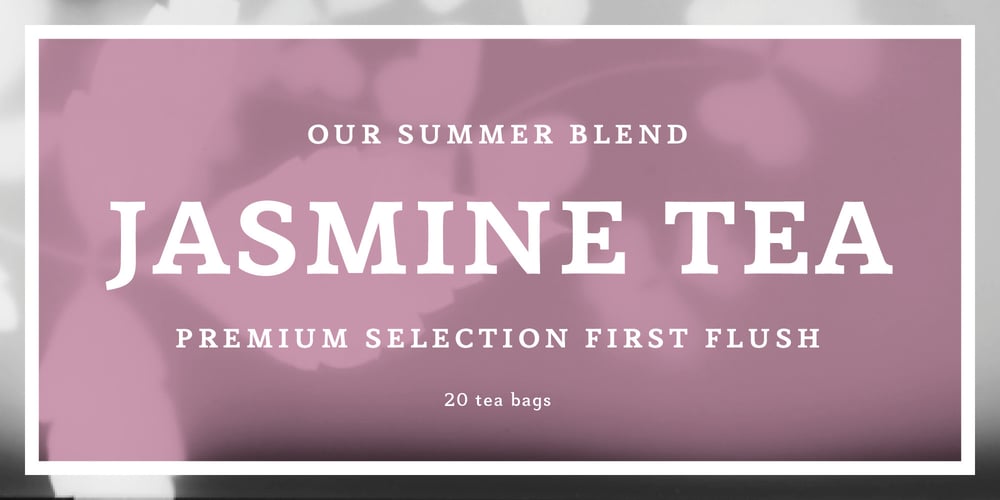
Mido
Mido font
Mido Font Family was designed by Eva Wilsson and published by Design Eva Wilsson. Mido contains 1 styles and family package options. Mido is designed with the aim to recreate all the power of the early 19h century slab serifs, but without their geometric monotony. The ambition was to make a humanist slab serif that would function both in smaller sizes, as headlines, and poster size. Careful attention has been payed to the spaces within and inbetween letters – they show slight irregularities to create dynamic negative spaces, which in turn makes the letters sit solidly together as words and sentences. Mido is suitable for packaging, posters, book covers, identities and headlines, as well as type set in smaller sizes. It comes with both upper- and lower case figures. The typeface Mido is an ongoing design project of which the first font is now released.